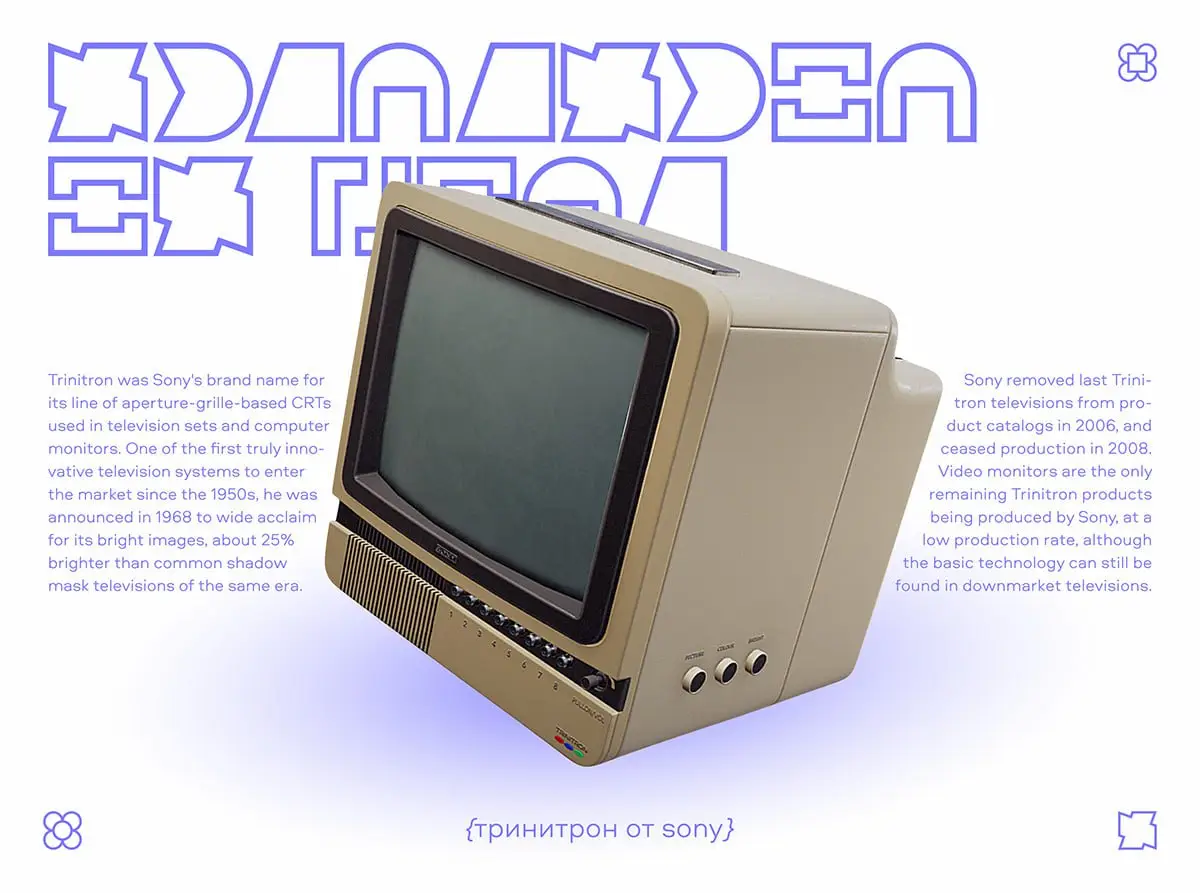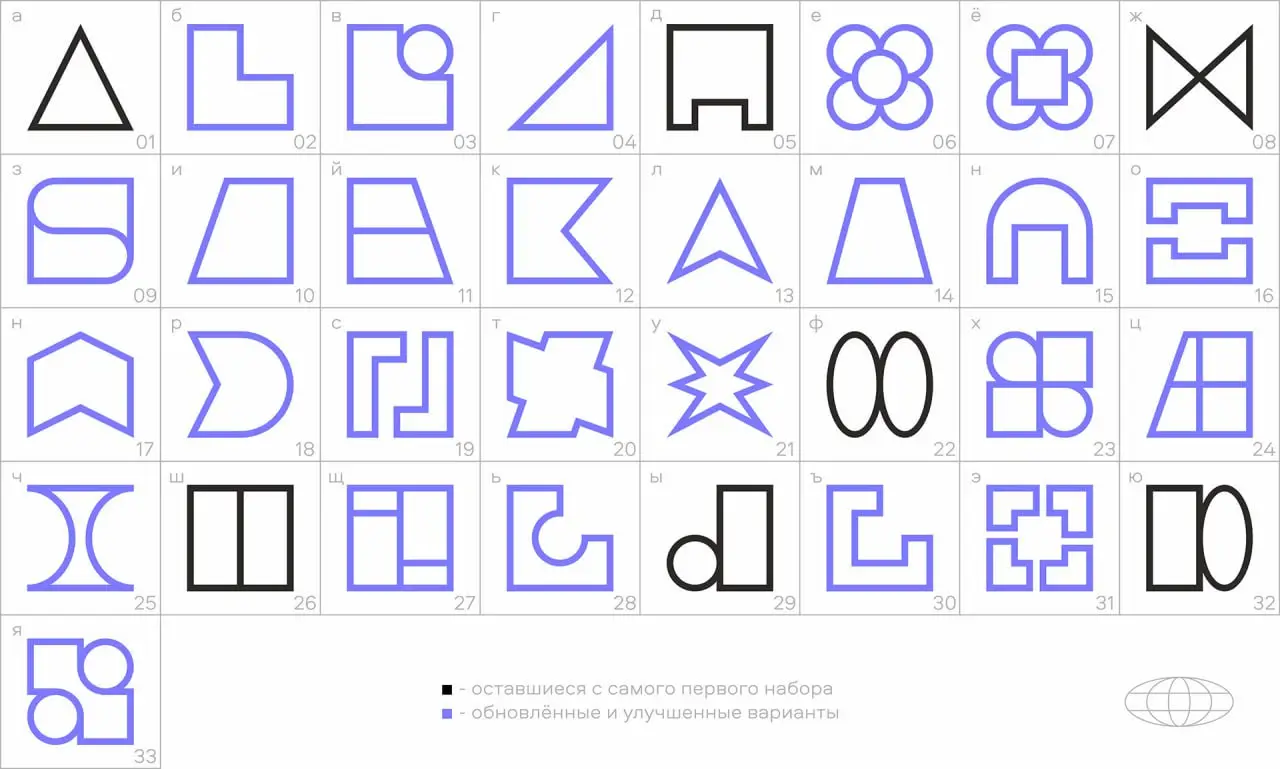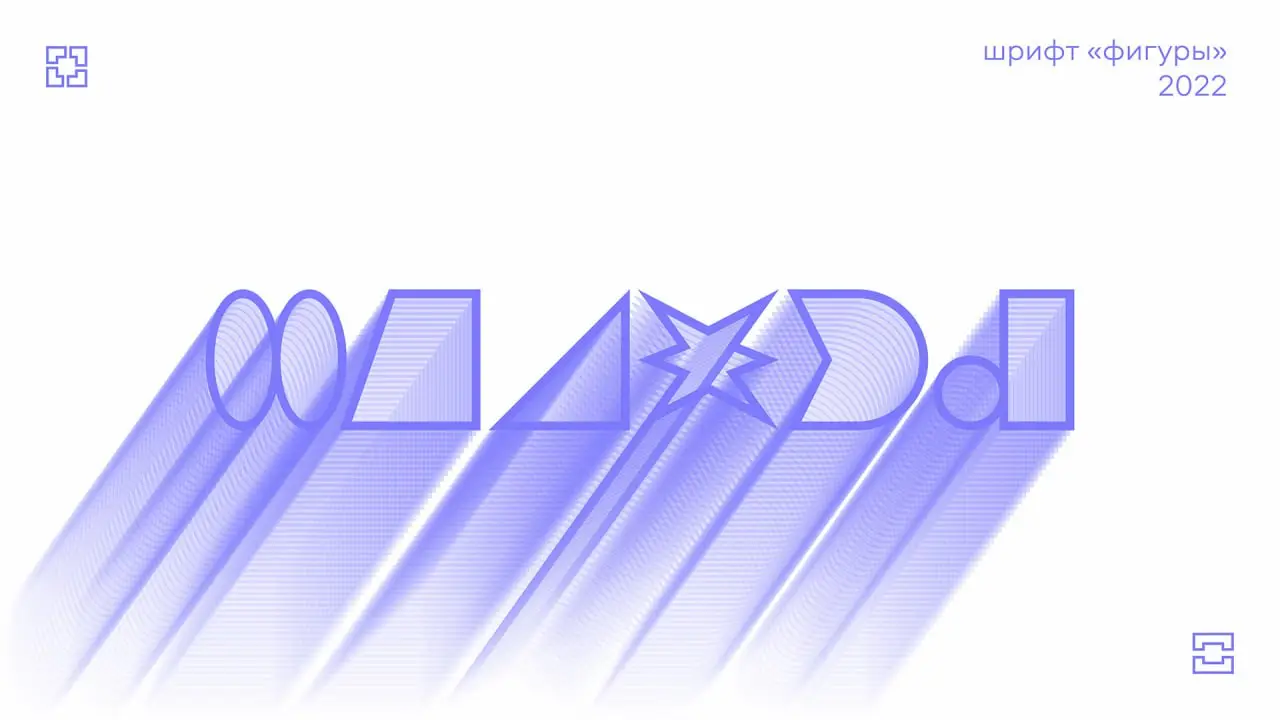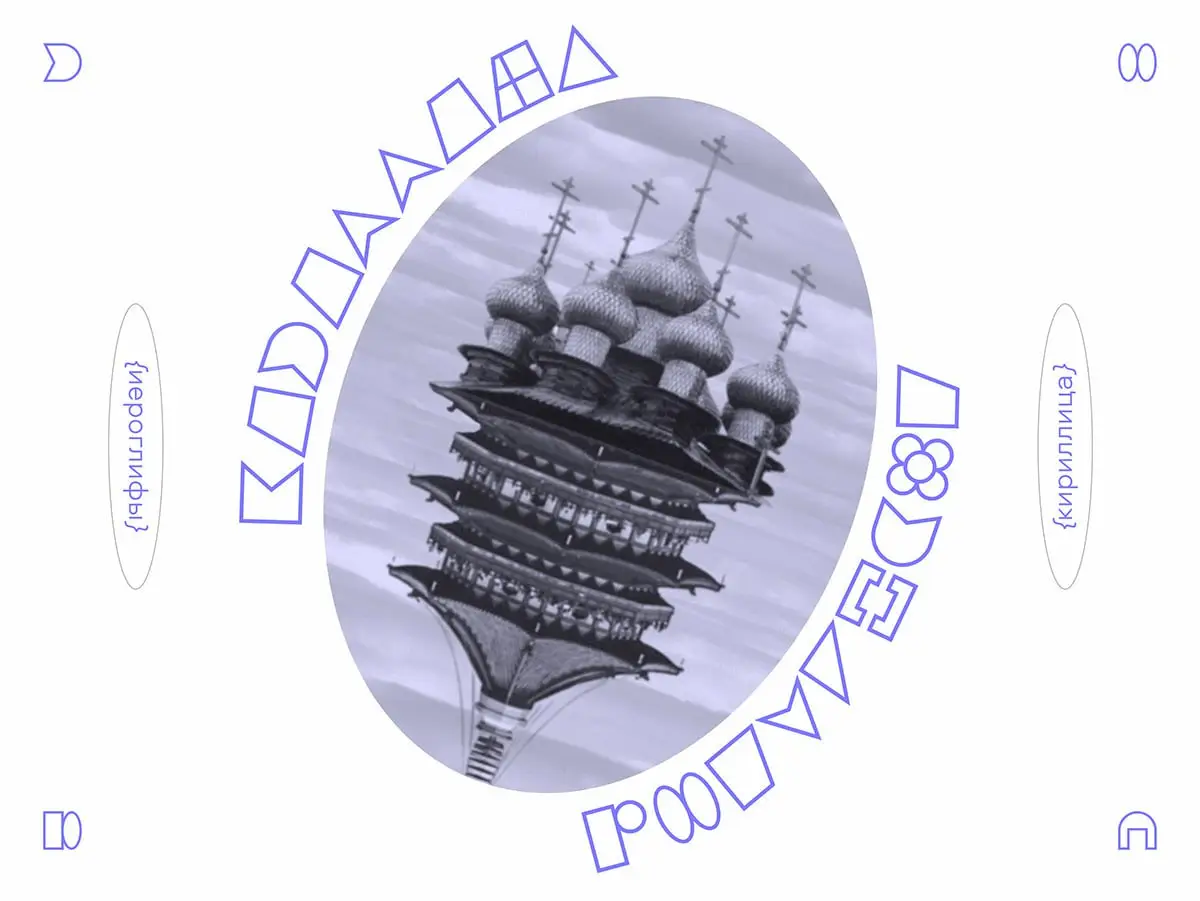
Figures — Free Font By Maxim Keshishev
Introducing Figures, a free font designed by Maxim Keshishev that brings a unique touch to your typography projects. This font features a modern geometric style, making it perfect for both digital and print applications.
Utilize Figures for branding, logo design, web content, and print materials. Its clean lines and modern aesthetic make it suitable for a wide range of projects, from corporate identities to creative artwork.